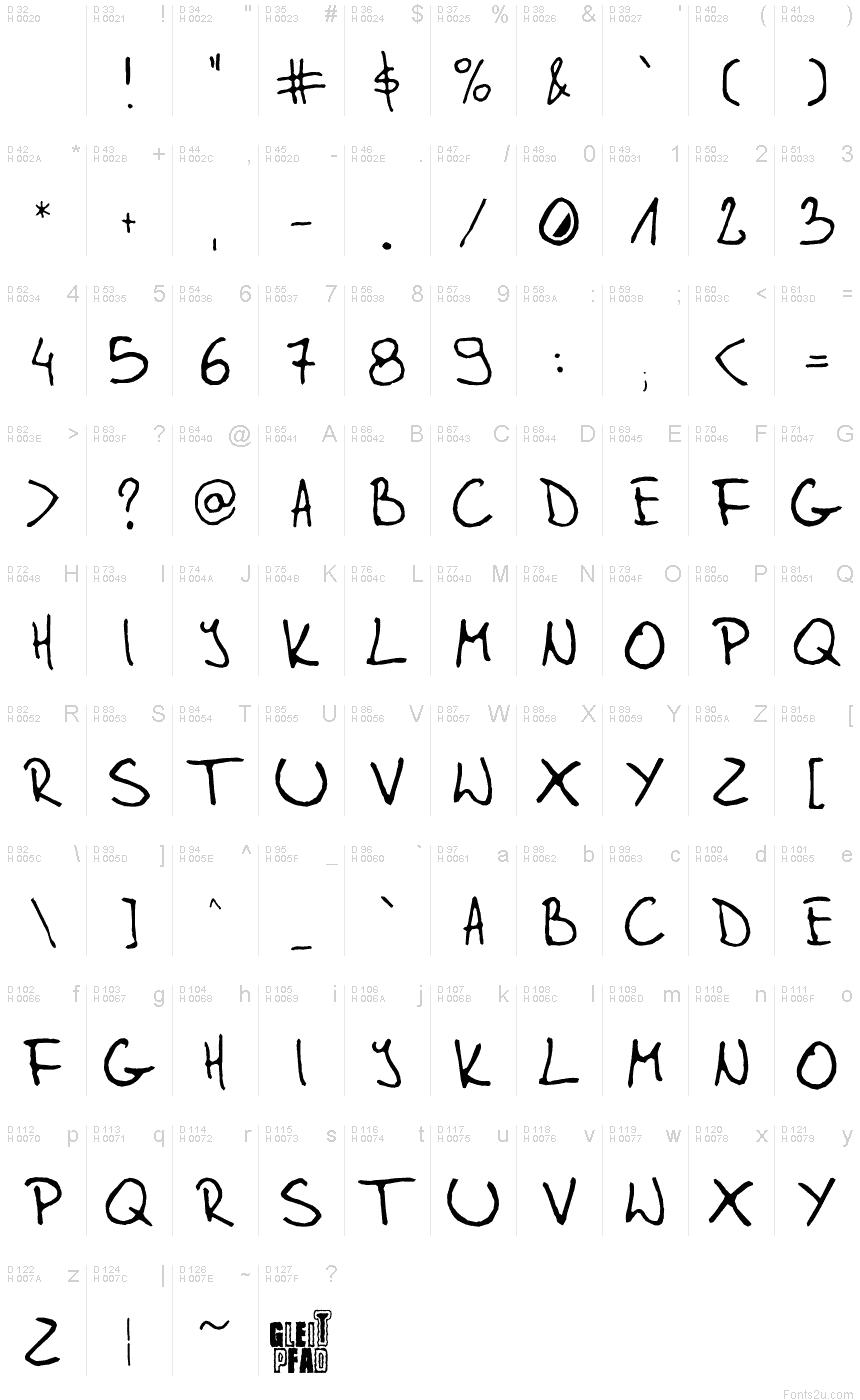
Gleitpfad
Gleitpfad is a captivating handwritten font designed by Mik+. Its bold, expressive strokes and natural flow convey a sense of effortless creativity, making it an ideal choice for a wide range of design applications. From editorial layouts to branding and packaging, Gleitpfad's distinct personality adds a touch of organic charm that can elevate any project.
The font's versatility shines through its ability to seamlessly transition between playful and sophisticated, making it a versatile tool for designers seeking to infuse their work with a unique, handcrafted aesthetic.